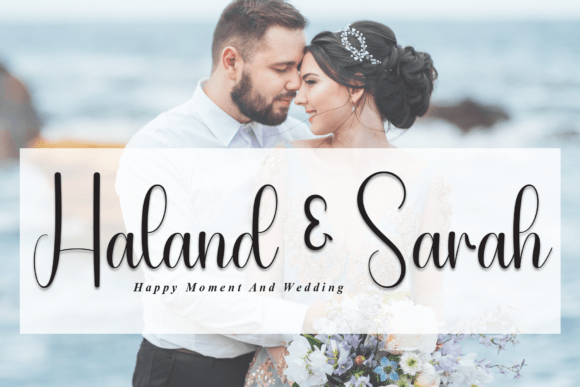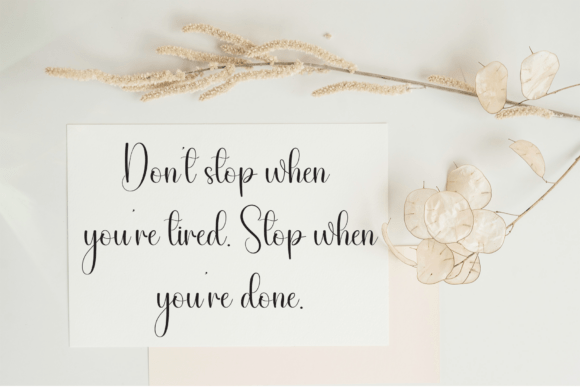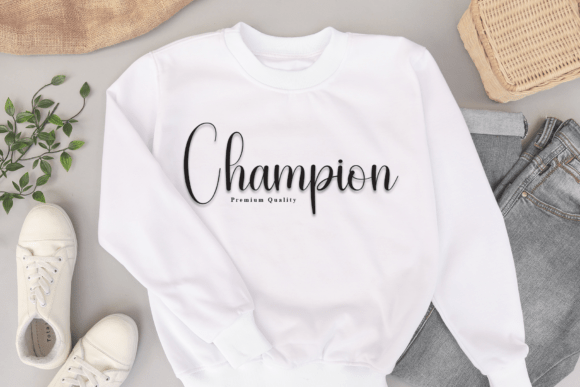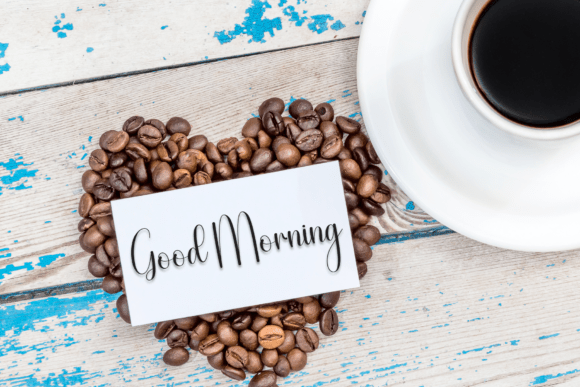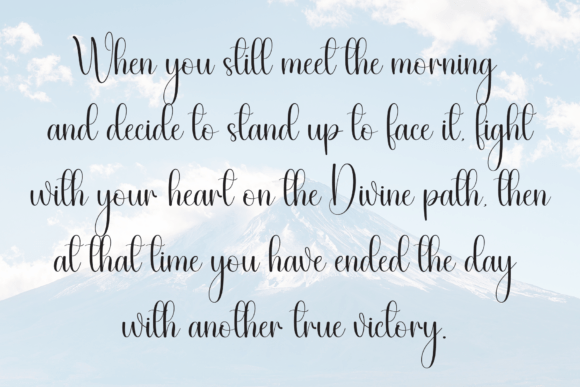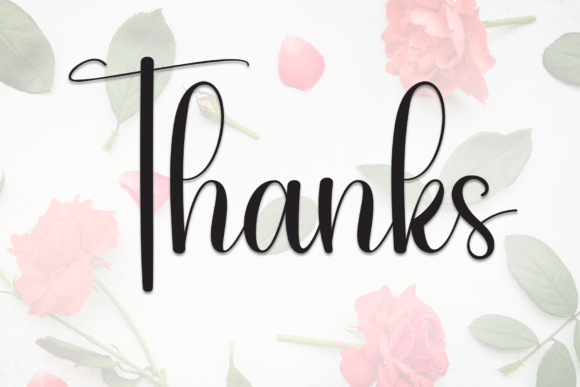
Discover the Sweet Charm of Flower Valentine Font
Have you ever stumbled upon the perfect font while browsing through a design collection, and suddenly, your creative project is filled with excitement and inspiration? That’s exactly what happened when we came across the delightful Flower Valentine Font.
As a charmingly warm expression of creativity, this handwritten display font is designed to radiate a sweet and friendly allure, making it perfect for wedding invitations, greetings cards, or other creative design projects that need a touch of whimsy. Whether you’re a seasoned designer or a hobbyist, the Flower Valentine Font is a valuable addition to your toolkit, guaranteeing to brighten any design canvas with its delightful touch.
Flower Valentine Font Key Features
- Unique Characteristics: The font features a unique, hand-drawn design with floral elements and a romantic touch, perfect for wedding invitations, Valentine’s Day cards, and other special occasions.
Flower Valentine Font Review
Overall, I think the Flower Valentine Font is a charming and whimsical addition to any design project. Here are some aspects that I particularly enjoy:
- ✨ The unique floral design elements add a touch of romance and playfulness to the font, making it perfect for Valentine’s Day or spring-themed projects.
- ✨ The font’s cursive script is elegant and smooth, with subtle variations in line width and flow that create a sense of movement and energy.
- ✨ The font’s character set is comprehensive, making it suitable for a wide range of applications, from headings and titles to body text.
- ⚠️ The font may be too ornate for some projects, potentially overwhelming the design or making it difficult to read at small font sizes.
- ⚠️ The font’s design is highly stylized, which may limit its versatility and make it less suitable for use in formal or professional settings.
In terms of overall impression, I think the Flower Valentine Font is a lovely addition to any designer’s toolkit. While it may not be the most versatile or practical font, its unique charm and character make it a great choice for projects that require a touch of whimsy and romance.
Tips for Getting the Most Out of the Flower Valentine Font
Use the Flower Valentine Font for creating romantic and whimsical designs.
Pair it with pastel colors and floral patterns for a cohesive look.
The Flower Valentine Font is perfect for:
Valentine’s Day cards and invitations
Wedding stationery and decor
Baby shower invitations and decorations
Any design that requires a touch of romance and whimsy